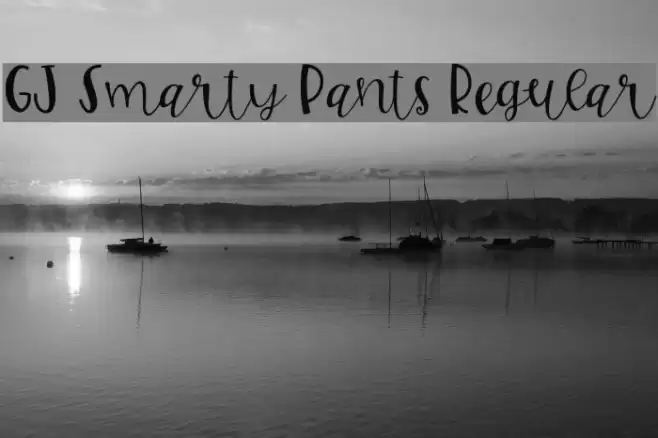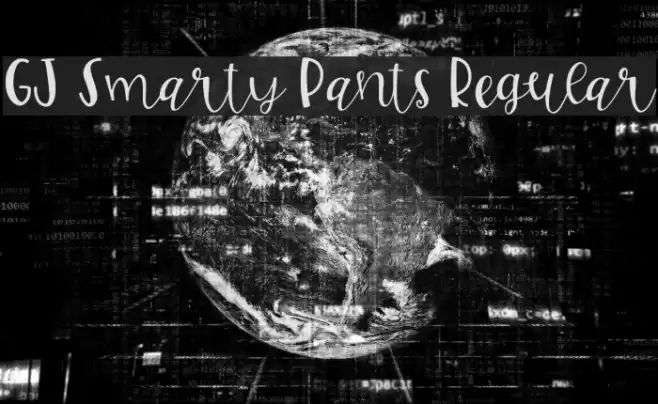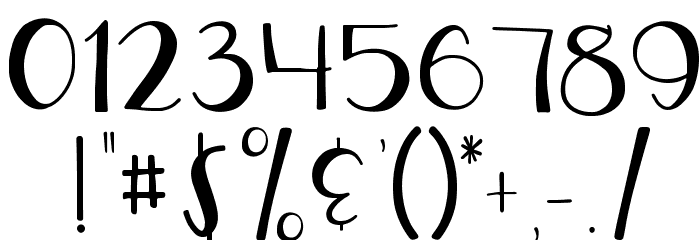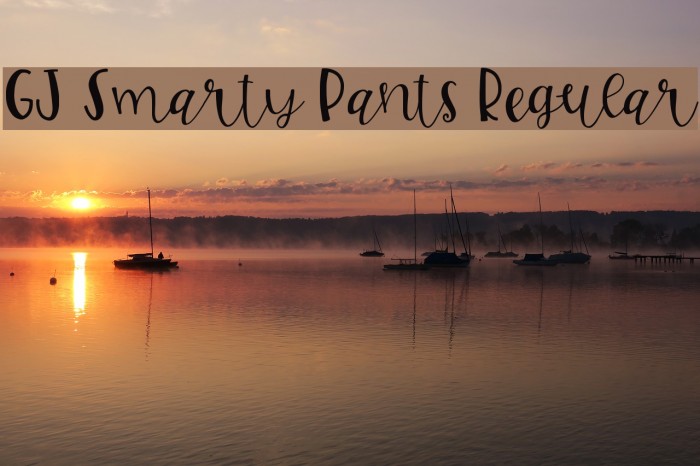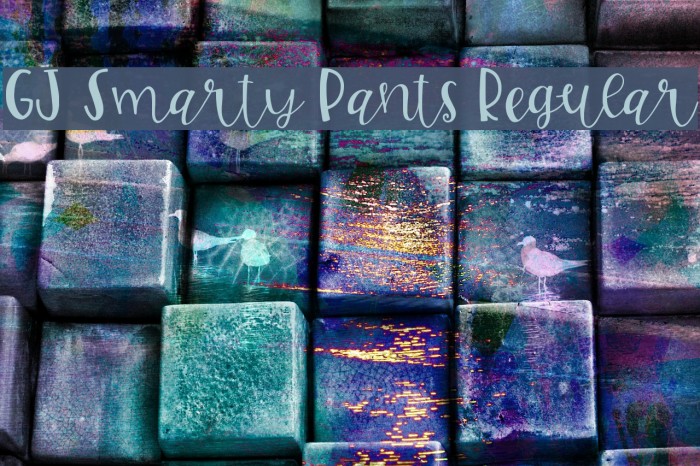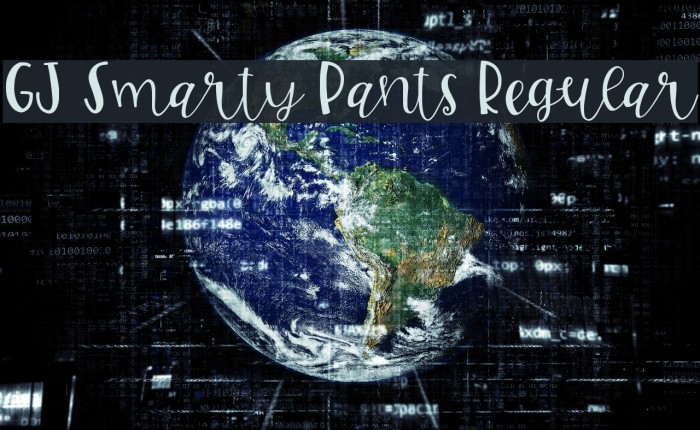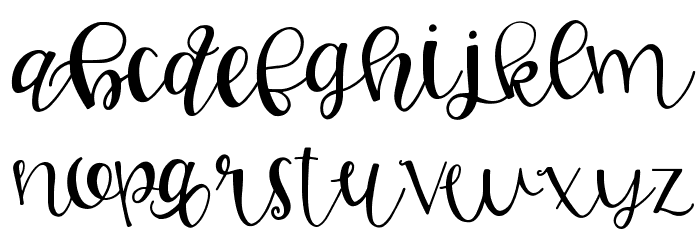
GJ Smarty Pants Regular Font
GJ Smarty Pants Regular Description
This playful and whimsical font features a unique blend of bold and flowing characters. The uppercase letters are bold and slightly condensed, with a playful bounce that adds a lively touch. The lowercase letters are more fluid and script-like, offering a charming contrast to the uppercase. Numbers and special characters maintain the playful style, with varying stroke thicknesses that add to the font's dynamic appearance. The overall design is both modern and decorative, making it suitable for creative and informal projects.
A playful, whimsical font with bold uppercase and fluid lowercase characters from Uncategorized fonts.
- Proposed Projects: Ideal for greeting cards, playful branding, children's books, and creative invitations.
- Overall Style: Playful, Modern, Decorative
- Use Case: Headlines, Logos, Invitations